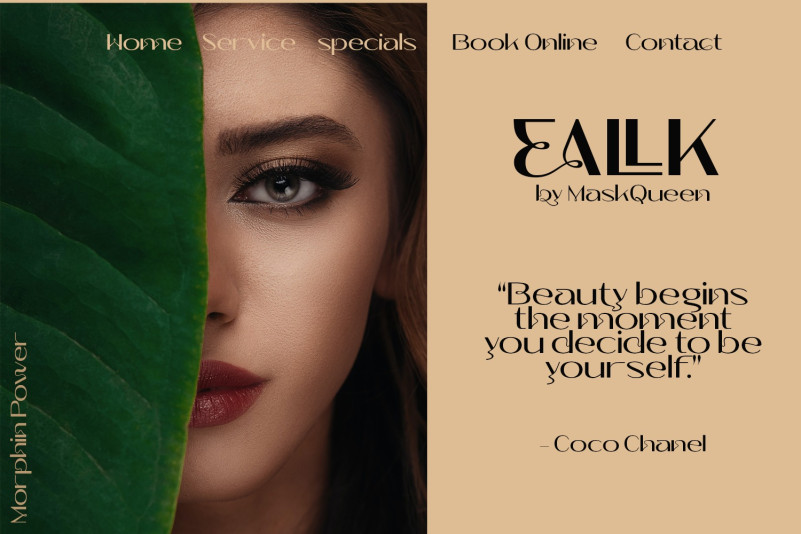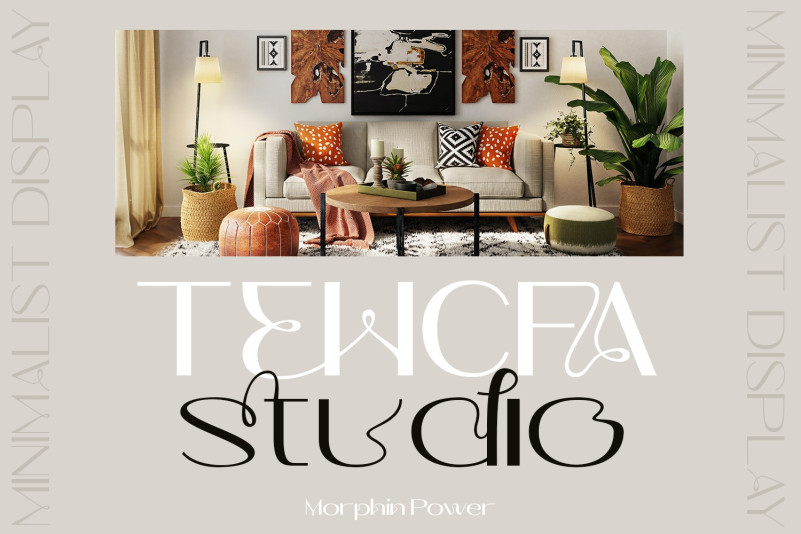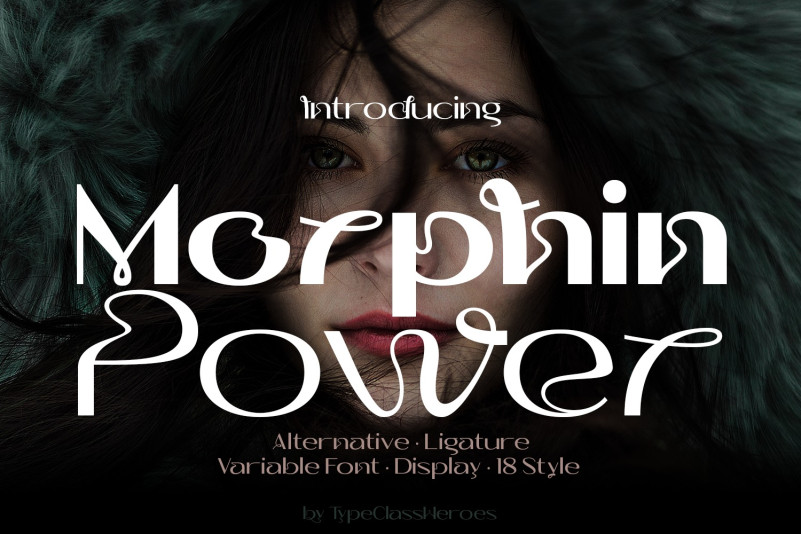
Morphin Power Font
Morphin Power Display Font, Its optimum legibility, clean, and geometric look is perfect branding, brochures, greeting cards, quotes, posters, stationary, design titles, blog headers, and much more.